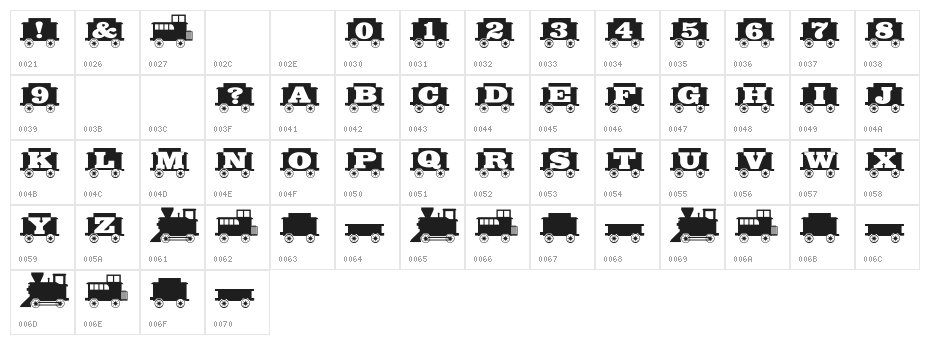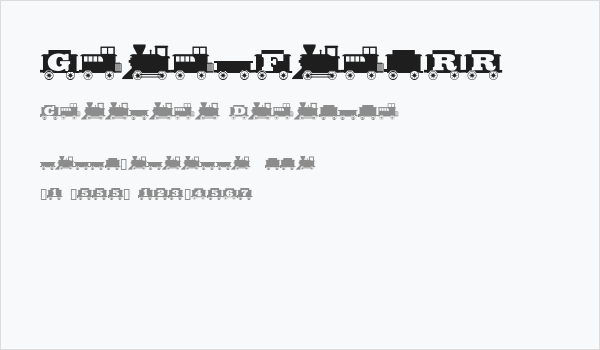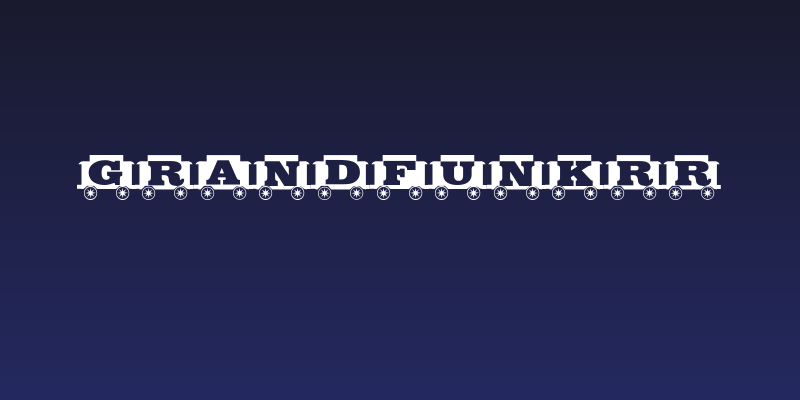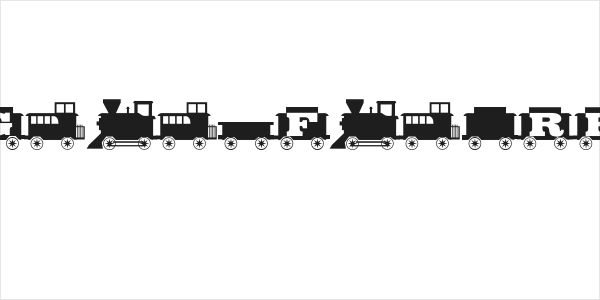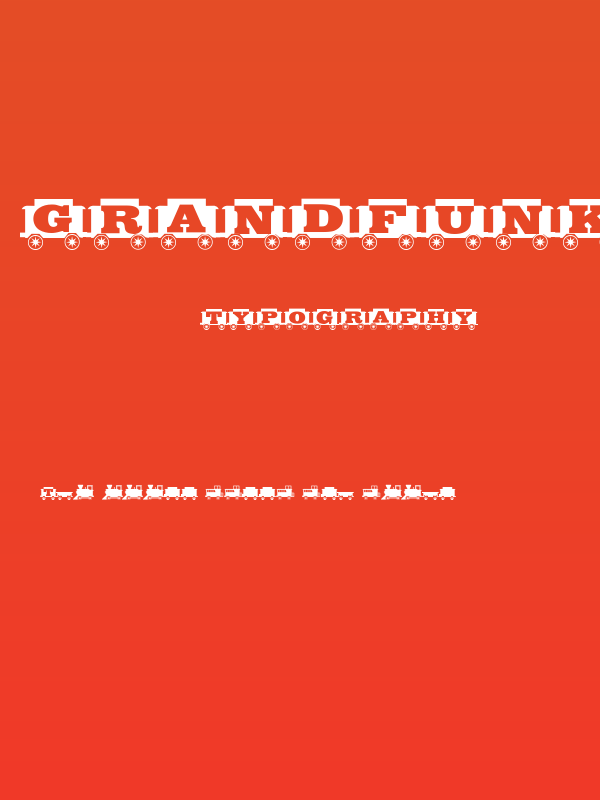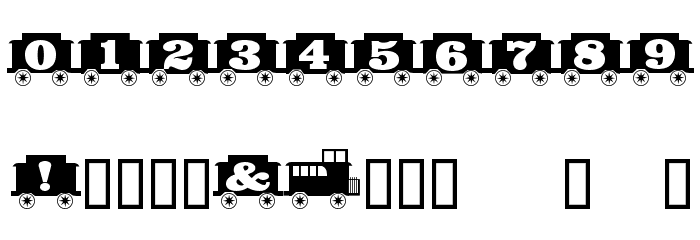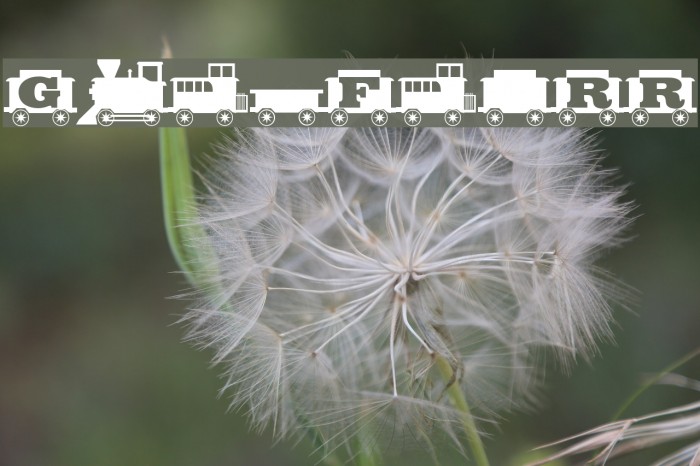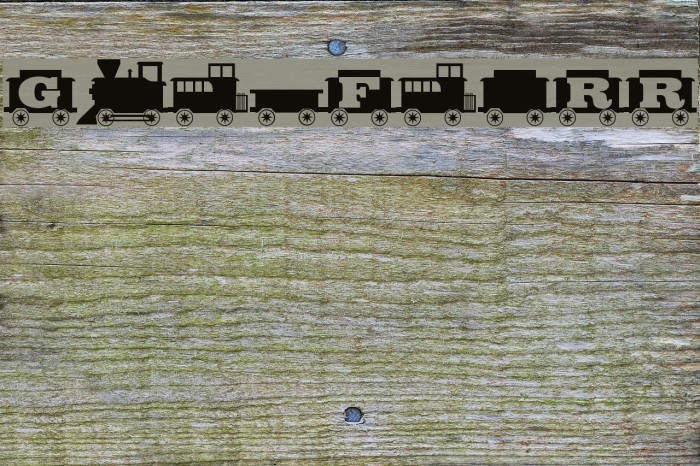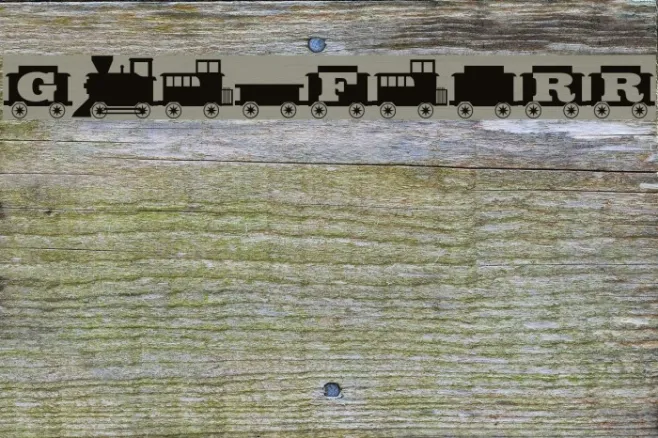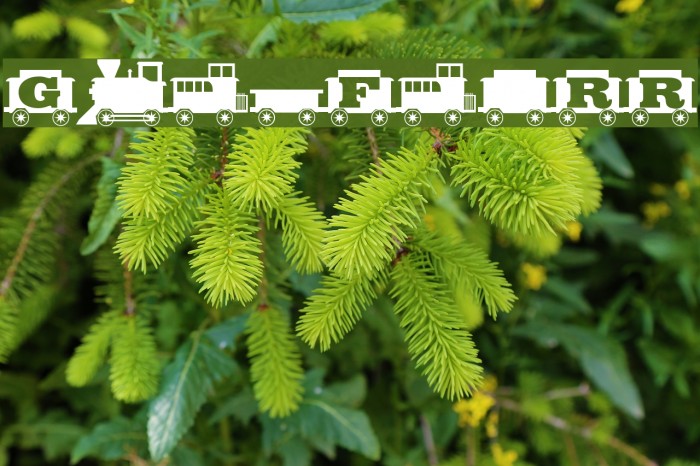
GrandFunkRR Font
GrandFunkRR Description
This font is a playful and decorative typeface where each character is designed to resemble a train car, complete with wheels and a connecting track. The uppercase letters, numbers, and special characters are all styled as individual train cars, giving a cohesive and thematic appearance. The bold, blocky design of the letters ensures readability while maintaining the whimsical train motif. This font is perfect for projects that require a fun and engaging visual element, particularly those aimed at children or transportation-themed events.
| Proposed Projects | Ideal for children's books, transportation-themed posters, event invitations, and educational materials. |